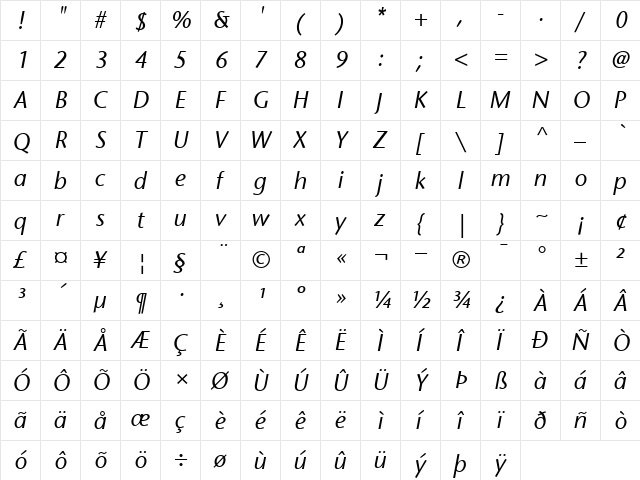
ITCStoneSans RomanItalic
Design Context for ITCStoneSans Typeface
ITCStoneSans is a composed and adaptable typeface that performs quietly and consistently across a wide range of design contexts. The slanted form adds forward momentum and visual energy.
Pro Tip: Try ITCStoneSans for annotation and caption copy alongside an upright companion — the contrast in angle creates a dynamic but ordered typographic system.